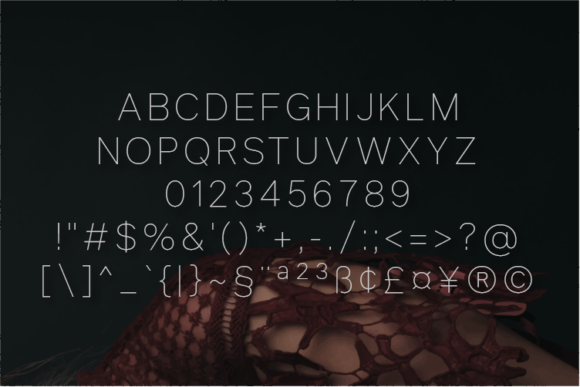
Introducing Colbey Extra Light Font: Elevate Your Design with Elegance
In the world of typography, fonts play a crucial role in conveying messages, expressing creativity, and building brand identities. For designers and crafters seeking a modern, sophisticated look, Colbey Extra Light Font stands out as an exceptional choice. This elegant contemporary sans serif font, with its soft edges and clean geometry, is perfect for a wide range of applications, from branding and logos to web design and more.
What Makes Colbey Extra Light Unique?
Colbey Extra Light is characterized by its harmonious appearance, making it suitable for both texts and headlines. Its design combines stylized geometry with a soft, approachable feel, setting it apart from more traditional sans serif fonts. This unique blend of modernity and elegance allows designers to create visually appealing content that captures the audience’s attention.
Key Features of Colbey Extra Light Font
- Elegant and Contemporary Design: Colbey Extra Light boasts a sleek, modern look that fits perfectly with current design trends.
- Soft Edges: The soft edges of this font add a touch of warmth and approachability, making it ideal for designs that require a friendly yet sophisticated feel.
- Clean and Stylized Geometry: The font’s geometric design ensures clarity and legibility, making it perfect for both digital and print applications.
- Harmonious Appearance: Colbey Extra Light maintains a consistent and balanced look across various sizes and applications, ensuring your designs always look polished.
- Versatility: This font is incredibly versatile, suitable for a wide range of projects including branding, logos, web design, advertising, and more.
Applications of Colbey Extra Light Font
The versatility of Colbey Extra Light makes it an excellent choice for various design projects. Here are some of the areas where this font truly shines:
- Branding: Create a lasting impression with elegant and memorable brand logos or wordmarks.
- Logos: The unique design of Colbey Extra Light makes it perfect for crafting distinctive and stylish logos.
- Web Design: Enhance your website’s typography with a font that is both modern and highly legible on digital screens.
- Advertising: Use Colbey Extra Light to create eye-catching ads that stand out with a sophisticated look.
- Packaging: Add a touch of elegance to product packaging, making your brand stand out on store shelves.
Tips for Using Colbey Extra Light Effectively
To maximize the impact of Colbey Extra Light in your designs, consider the following tips:
- Pair with Complementary Fonts: For maximum effect, pair Colbey Extra Light with fonts that complement its modern and elegant feel.
- Consider Font Size: While Colbey Extra Light is legible at various sizes, ensure that the font size is appropriate for the medium and viewing distance.
- Play with Line Spacing: Adjust line spacing to improve readability, especially in longer texts.
- Experiment with Colors: While the font itself is elegant, the right color choice can further enhance its appearance and suitability for your design.
Colbey Extra Light Font offers designers and crafters a powerful tool to elevate their projects with a touch of elegance and modernity. Its unique blend of soft edges and clean geometry makes it stand out in the world of typography. Whether you’re working on branding, logos, web design, or any other project, Colbey Extra Light is a versatile and stylish choice that can help you achieve your creative goals. Explore the possibilities with Colbey Extra Light and discover how it can transform your designs.